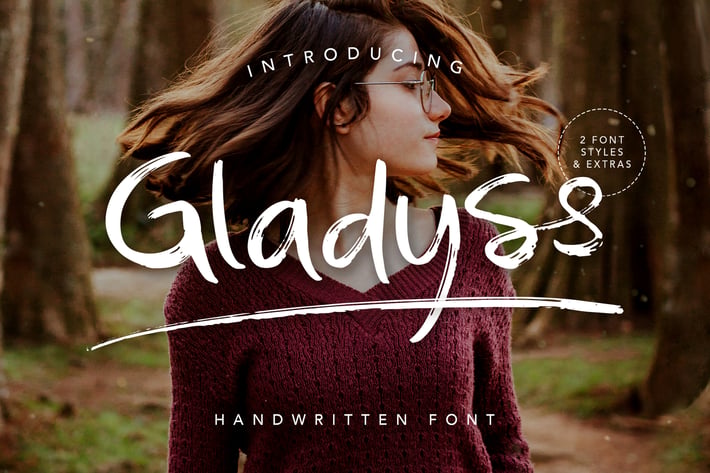
Gladyss Handwritten Font
Make your designs come alive with Gladyss, a lively handwritten font that blends bold character with expressive brush detail. Designed for those who love natural hand-drawn aesthetics, Gladyss captures the essence of modern creativity, authentic, artistic, and full of personality. Whether you’re working on branding, social media, or adventurous posters, this font gives your project the handcrafted flair it deserves.
About the Font
Gladyss is a handwritten brush font that combines dynamic strokes with expressive energy. Each letter has been crafted to emulate natural handwriting with a bold, textured brush style, creating a unique balance of confidence and charm. From professional designs to personal artwork, Gladyss adds emotion, authenticity, and rhythm to every word you type.
This font comes in two distinct styles, Gladyss Regular and Gladyss Alt, along with an additional bonus set of Gladyss Extras, making it a versatile tool for all kinds of creative work. Each version has its own personality, offering flexibility to mix and match depending on your desired tone and theme.
Font Variants
+ Gladyss Regular: A clean, bold, and structured version that delivers legibility while maintaining a handcrafted look. Perfect for elegant branding, beauty products, magazines, or any layout that requires a refined handwritten style.
+ Gladyss Alt: A more expressive, free-flowing version with quick dry strokes and a natural, adventurous vibe. Ideal for outdoor, lifestyle, and creative projects that call for spontaneity and energy.
+ Gladyss Extras: A special bonus set featuring 26 hand-drawn swashes, designed to underline or accentuate your Gladyss text beautifully. Install it as a separate font, select it from your menu, and type any A–Z character to create stunning underlines and flourishes effortlessly.
With these three components, Gladyss offers the flexibility to create everything from polished branding to wild, expressive designs, all while keeping your visual tone cohesive and engaging.
Suitable Uses
Gladyss is designed to fit a wide variety of creative purposes. Whether you want to express elegance, adventure, or fun, it adapts seamlessly to different concepts:
+ Brand Identity & Logos: Make your brand name pop with confident brush lettering.
+ Packaging Design: Perfect for product labels in fashion, skincare, or artisanal goods.
+ Posters & Flyers: Create eye-catching compositions that grab attention instantly.
+ Adventure & Travel Themes: Give a spontaneous, natural touch to travel journals, blogs, or outdoor-themed visuals.
+ Social Media & Blog Graphics: Add energy and originality to quotes, banners, or announcements.
+ Editorial Design & Typography Art: Combine both versions to highlight contrast and creativity.
With its mix of boldness and spontaneity, Gladyss helps you create visuals that are both professional and full of life.
Why Choose Gladyss?
The charm of Gladyss lies in its expressive personality. It carries the heart of a true handwritten brushstroke, dynamic yet versatile, artistic yet clear. Whether used for titles, packaging, or signatures, this font transforms ordinary text into standout visuals.
Its natural texture and distinct brush pressure make it ideal for modern creatives who seek authenticity in design. Plus, with the addition of swashes and alternate styles, Gladyss empowers you to customize your typography for every unique project.
+ 2 Font Styles (Regular & Alt)
+ Bonus Gladyss Extras (26 Hand-Drawn Swashes)
+ Uppercase & Lowercase Letters
+ Numbering and Punctuation